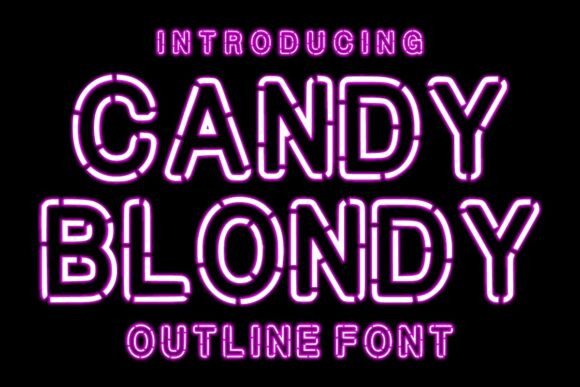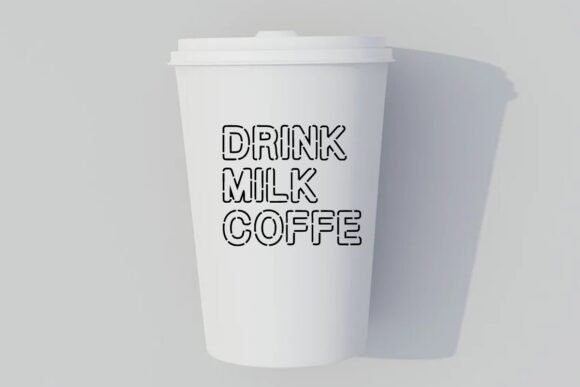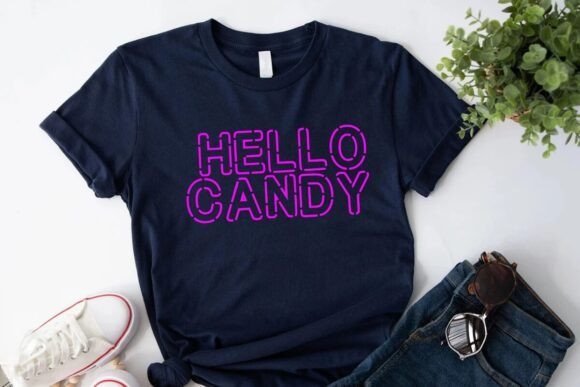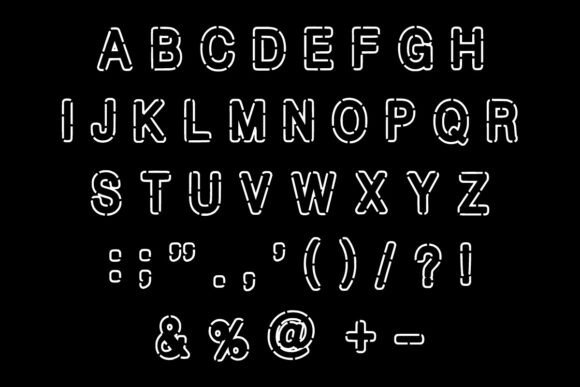
Candy Blondy Font
About the Candy Blondy Font
Explore the possibilities with Candy Blondy Font, a font that offers both beauty and functionality. Candy Blondy is an outline adaptable display font. It is easy to read and conveys impeccable friendliness. Whether you’re using it for crafts, digital design, presentations, or making greeting cards, this font has the potential to become your favorite go-to font.
Candy Blondy’s friendly, approachable style makes it ideal for headlines, short text blocks on posters or packaging, and branding elements where a lighthearted feel is desired. It excels in applications requiring immediate visual appeal, such as social media graphics or short promotional materials. However, its delicate outline isn’t suitable for body text or UI elements requiring high readability at smaller sizes or extended use.
Pair Candy Blondy with a clean sans-serif like Open Sans for a balanced contrast, or a classic serif like Garamond for a touch of elegance. For a more playful effect, consider pairing it with a handwritten script font, but ensure legibility remains a priority.
Its overall personality is cheerful and optimistic, lending itself to brands targeting a young, playful demographic or products emphasizing sweetness, fun, or craft.
Candy Blondy Font Usage Examples
Candy Blondy Font Example